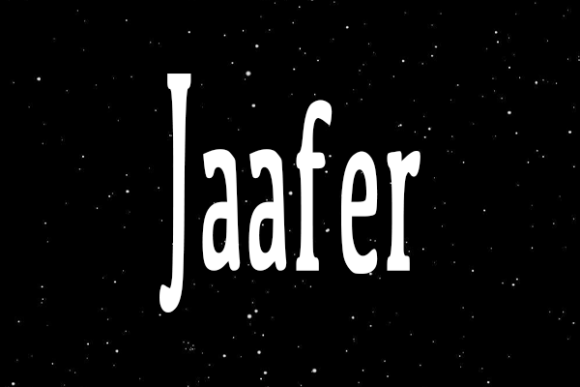
Introduction to Jaafer Font
Do you remember the moment when you finally nailed the perfect design for your creative project? The rush of excitement, the satisfaction of bringing your vision to life? For designers, this moment is a constant pursuit, and having the right tools can make all the difference. One such tool that has been gaining popularity among designers is the Jaafer Font, a stunning serif font that exudes elegance and trendiness.
Whether you’re working on a digital design, crafting a presentation, or creating greeting cards, the Jaafer Font is the perfect design resource to elevate your creative project. With its high-quality design and transparent background, this font is sure to make your work stand out. And the best part? It’s available for free download, making it an accessible addition to your design arsenal.
Key Features of Jaafer Font
- Unique, hand-drawn design with a creative touch, ideal for a wide range of design projects, from branding to digital art.
- High-resolution font with clear, legible characters, suitable for use in print and digital media.
- Perfect for designers looking for a distinctive, elegant font to elevate their creative project, whether it’s a logo, poster, or website.
Honest Review: Jaafer Font
I recently had the opportunity to work with the Jaafer Font on a creative project, and I must say it’s been a game-changer. This free download has been a great addition to my design resource arsenal.
What works well: ✨ The Jaafer Font is incredibly versatile and can be used in a wide range of design applications, from digital graphics to print materials. Its high quality and unique style make it a great choice for designers looking to add some personality to their work.
Some of the features I love include:
- Transparent background, making it easy to layer over other design elements
- High-resolution files, ensuring crisp and clear text even at large sizes
- A wide range of font styles and weights, giving designers plenty of options for customization
⚠️ One limitation of the Jaafer Font is that it may not be suitable for projects that require a more traditional or formal look. Its unique style may be too bold for some designs.
Overall, I’m really impressed with the Jaafer Font and would highly recommend it to designers looking for a high-quality, creative resource for their next project.
Tips for Getting the Most Out of Jaafer Font
To maximize the impact of Jaafer Font, experiment with different font sizes, colors, and combinations. Use it for headings, titles, and body text to create a visually appealing design.
Jaafer Font is ideal for various creative projects, including logos, branding materials, social media graphics, and presentations. Its high-quality design and transparent background make it a versatile design resource.